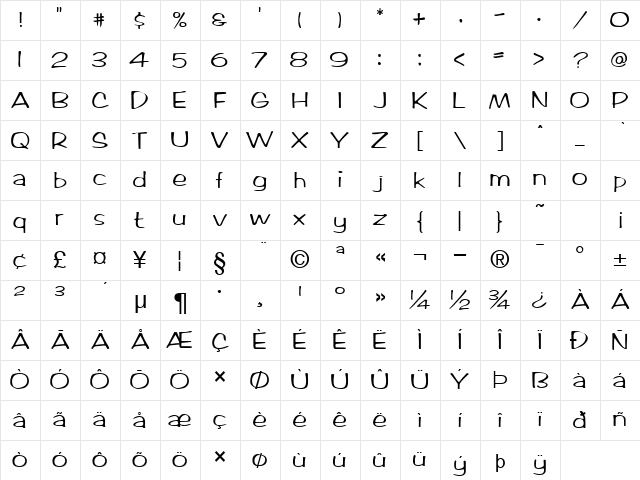
Marlo Normal
Design Context for Marlo
Marlo is a composed and adaptable typeface that performs quietly and consistently across a wide range of design contexts.